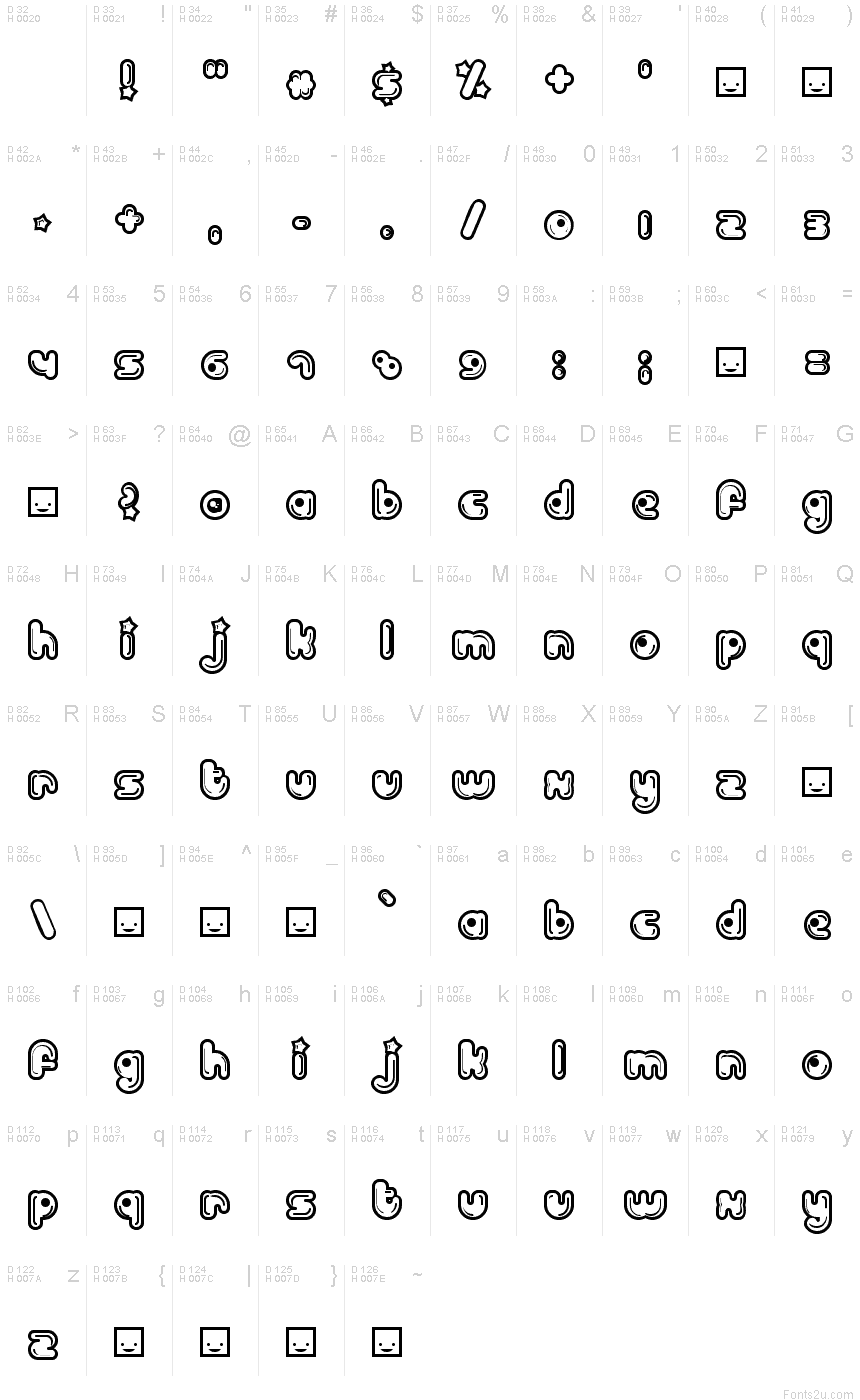
Billo Dream
Billo Dream font by Font"a"licious Fonts is a free groovy display font with a soft, inflated outline and a quirky inner stripe that makes every word feel like it’s humming along to a vintage record. The chunky rounded shapes stay playful without getting messy, and the generous spacing gives the whole typeface a clean, easy bounce.
Using Billo Dream works beautifully for retro posters, album art, sticker designs, kids’ merch, party invitations, YouTube thumbnails, and nostalgic branding with a lighthearted wink. This free font looks best given some breathing room at larger sizes; pair it with a plain geometric sans for body copy and let the headline do the dancing.